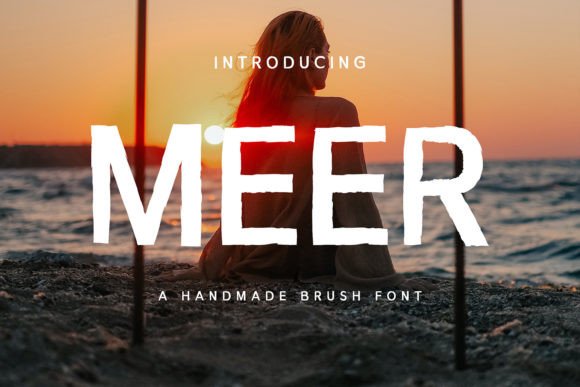
Introducing Meer Font, a refreshing handwritten brush texture font that exudes a modern, youthful, and unique charm. Let your creativity flourish as you craft captivating designs that speak volumes.
With Meer, you can effortlessly elevate the visual appeal of your projects. Picture your social media posts, logos, and website headlines adorned with Meer's enchanting strokes. Transform your branding into a magnetic force that draws attention and ignites engagement.
Whether you're an aspiring calligrapher, a seasoned designer, or a creative entrepreneur, Meer is your perfect companion. Its versatility knows no bounds, ready to complement a wide spectrum of projects. Unleash your imagination and create designs that leave a lasting impression.
Embrace the boundless possibilities of Meer and witness the transformation of your creative visions into stunning realities.